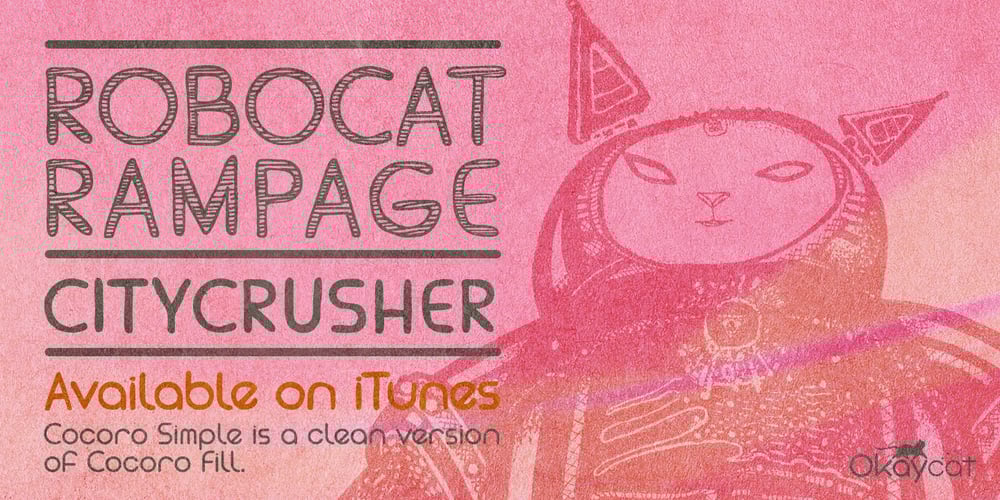
Cocoro
Cocoro font
Cocoro Font Family was designed by Luke William Turvey, Natsuko Hayashida and published by Okaycat. Cocoro contains 3 styles and family package options. Cocoro is a rounded textured font. Cocoro is extended, containing West European diacritics & ligatures, making it suitable for multilingual environments & publications.